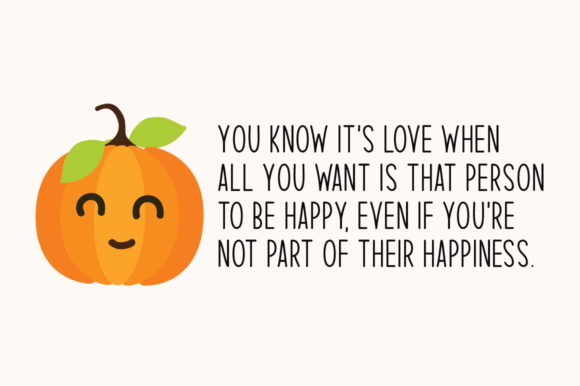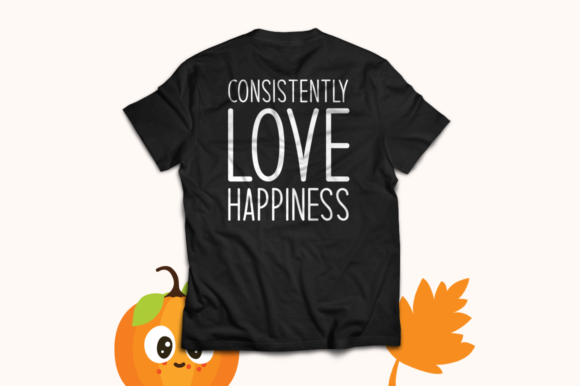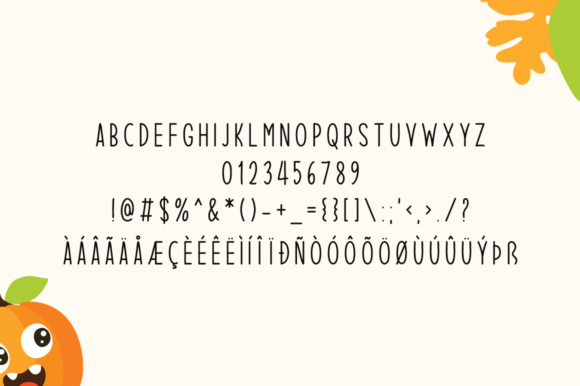
Introducing Good Mood Font: The Perfect Handwritten Companion for Your Design Projects
Are you a designer or crafter looking for a font that can add a personal touch to your projects? Look no further than Good Mood Font, a simple and natural handwritten font that’s perfect for bringing your design ideas to life. In this article, we’ll explore the features and benefits of Good Mood Font, and show you how it can elevate your designs to the next level.
What is Good Mood Font?
Good Mood Font is a beautiful, handwritten font that’s designed to be thin and casual. Its simplicity and natural feel make it an excellent choice for a wide range of design projects, from craft projects to digital designs. Whether you’re creating a logo, a poster, or a social media graphic, Good Mood Font is the perfect companion to help you bring your ideas to life.
Key Features of Good Mood Font
- Simple and Natural: Good Mood Font has a simple and natural handwritten feel that’s perfect for designs that require a personal touch.
- Thin and Casual: The font’s thin and casual style makes it easy to read and perfect for a wide range of design projects.
- Highly Versatile: Good Mood Font can be used for a variety of design projects, including logos, posters, social media graphics, and more.
- Easily Readable: The font’s clear and simple design makes it easily readable, even at small sizes.
Benefits of Using Good Mood Font
So why choose Good Mood Font for your design projects? Here are just a few benefits of using this amazing font:
- Adds a Personal Touch: Good Mood Font’s handwritten feel adds a personal touch to your designs, making them stand out from the crowd.
- Enhances Creativity: The font’s simple and natural design encourages creativity and experimentation, helping you to come up with unique and innovative design ideas.
- Perfect for Branding: Good Mood Font is an excellent choice for branding projects, as it helps to create a friendly and approachable tone.
How to Use Good Mood Font in Your Design Projects
Using Good Mood Font in your design projects is easy. Here are a few tips to get you started:
- Pair it with Other Fonts: Good Mood Font pairs well with other fonts, so don’t be afraid to experiment with different combinations.
- Use it for Headings and Titles: The font’s bold and playful style makes it perfect for headings and titles.
- Add it to Your Brand Kit: Consider adding Good Mood Font to your brand kit, so you can use it consistently across all your design projects.
In conclusion, Good Mood Font is a simple and natural handwritten font that’s perfect for designers and crafters looking to add a personal touch to their projects. Its thin and casual style makes it highly versatile, and its easily readable design makes it perfect for a wide range of design projects. Whether you’re creating a logo, a poster, or a social media graphic, Good Mood Font is an excellent choice. So why not give it a try and see how it can elevate your designs to the next level?